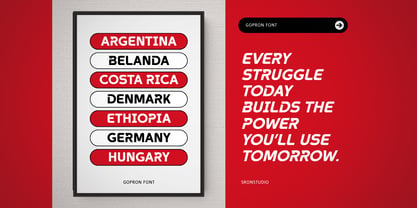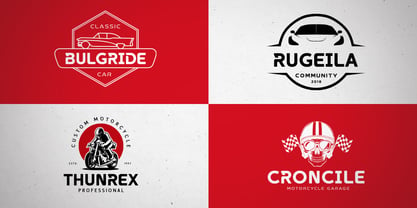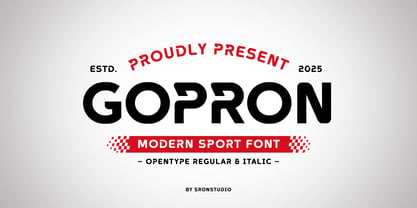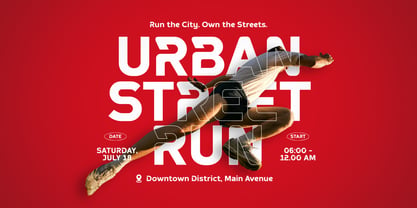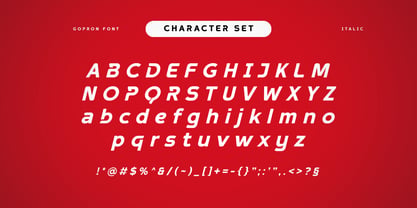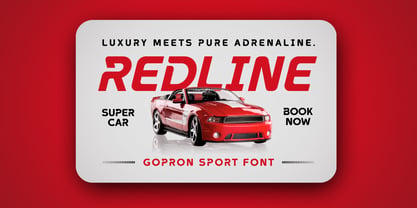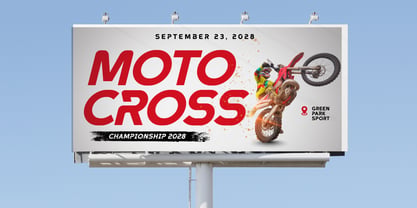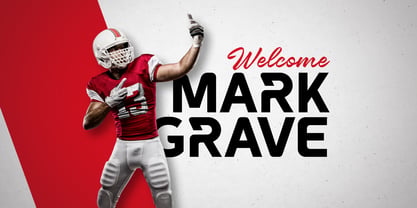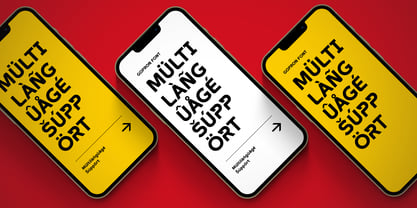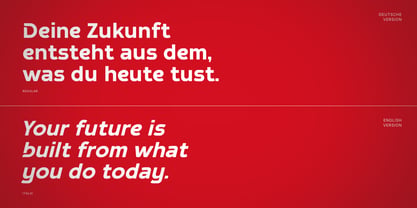
Gopron
by Sronstudio
The Gopron Font Family was designed by Muhamad Yusron Billah and published by Sronstudio. Gopron contains 2 styles and family package options. More about this family
Gopron is a modern sport font built to deliver speed, power, and impact. With its bold structure, sharp angles, and dynamic letterforms, this font is perfect for sports branding, team logos, jerseys, posters, esports graphics, and athletic campaigns. Gopron captures the competitive spirit and high-energy feel of modern sports design. What’s Included: - Regular & Italic styles - Numerals & punctuation - PUA encoded for easy access - Multilingual support - Works seamlessly on Mac & Windows Thank you very much 🙂